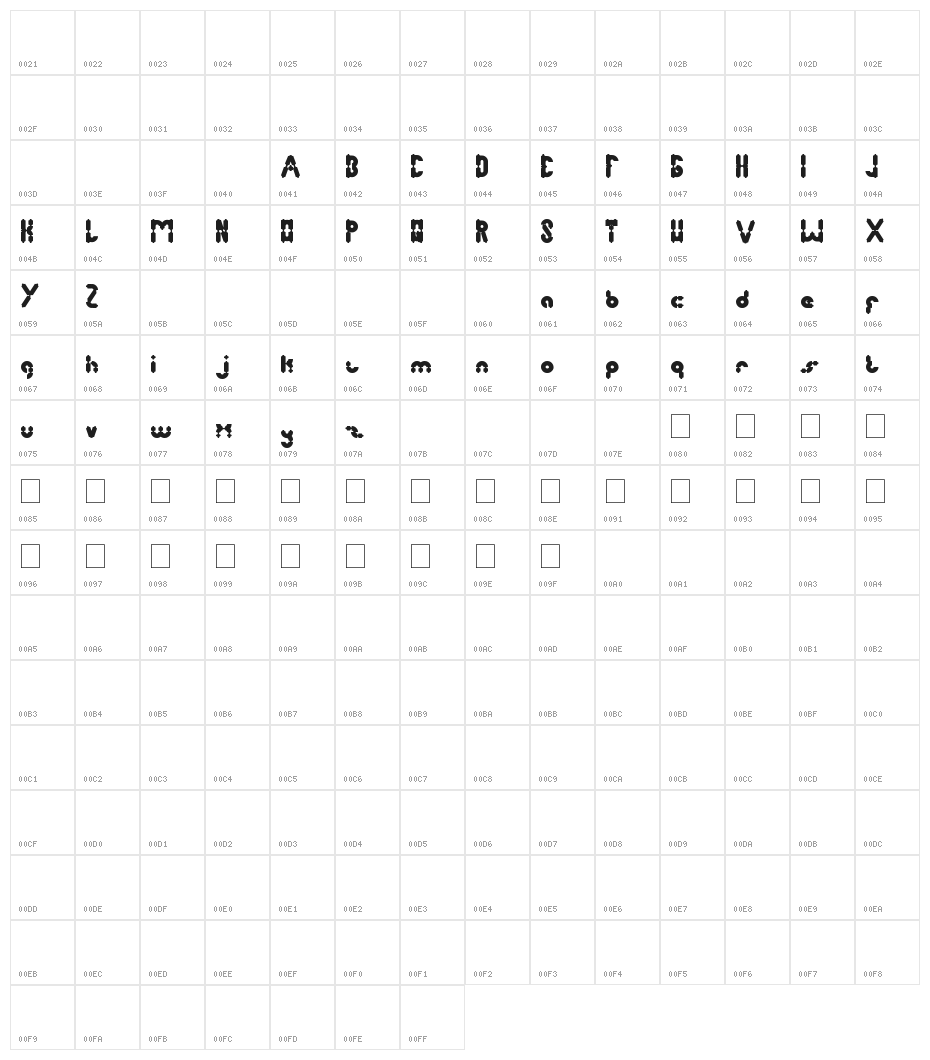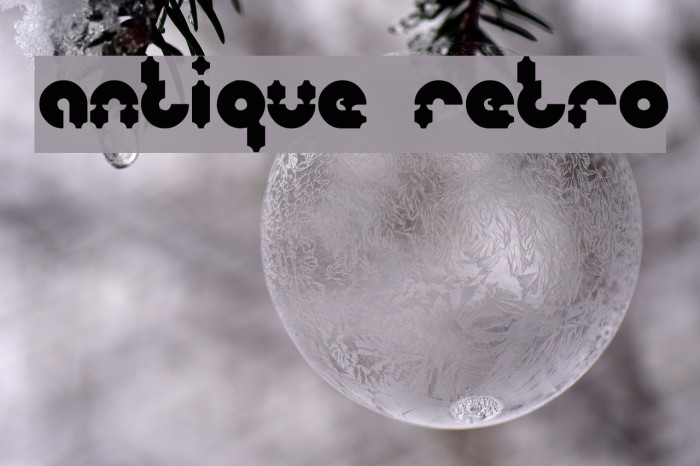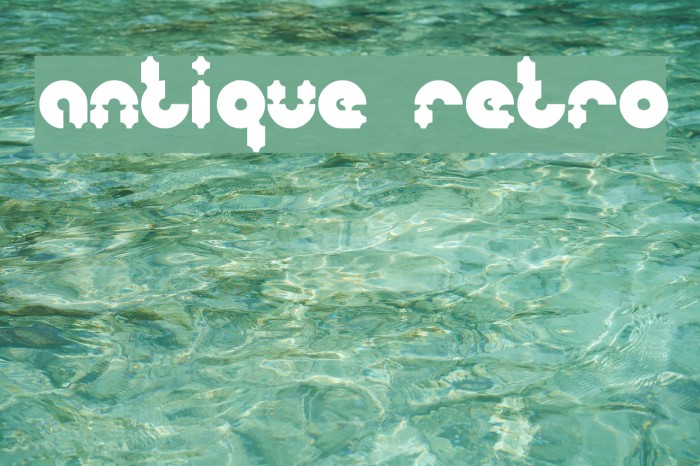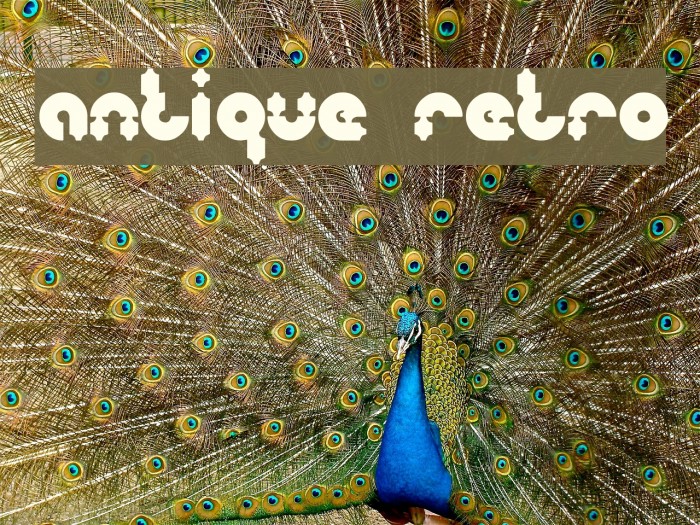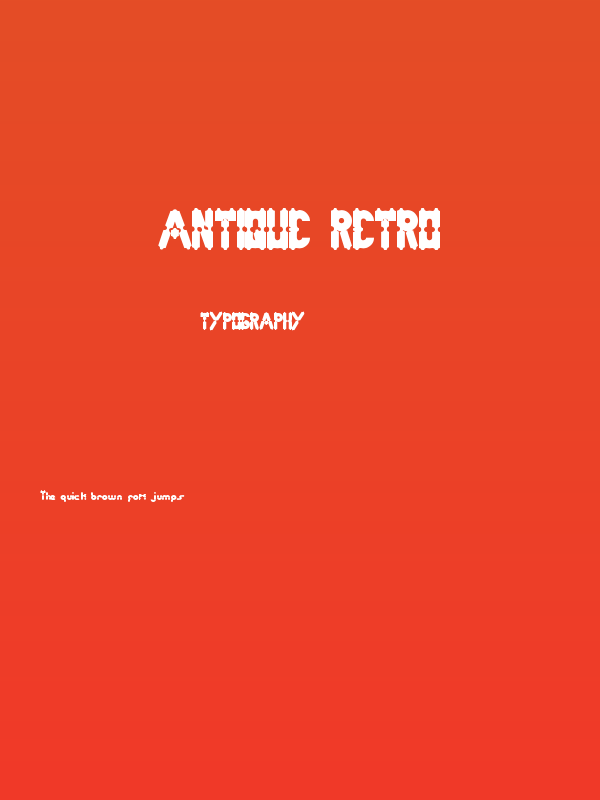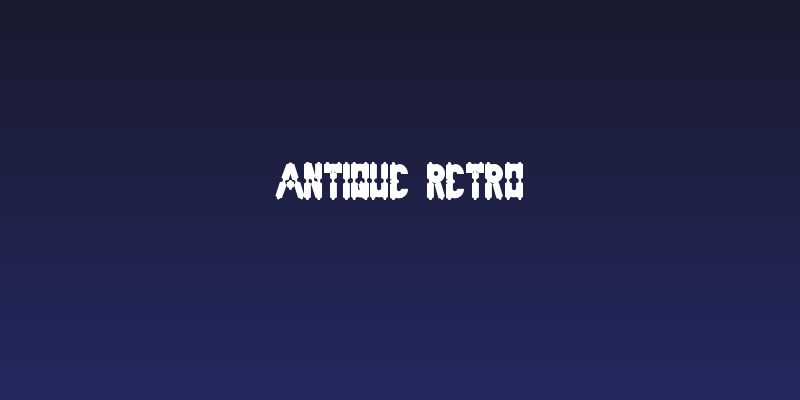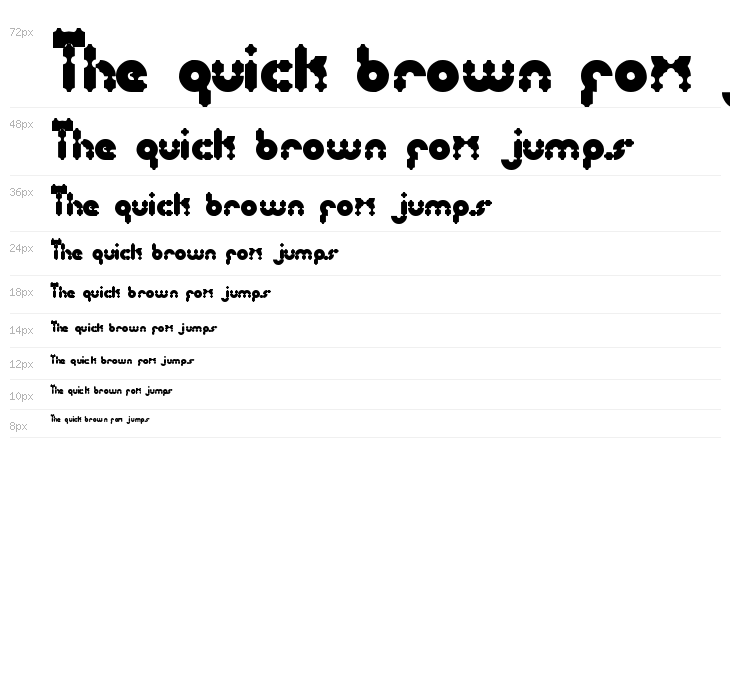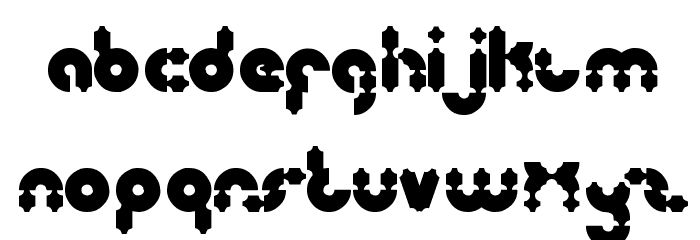
antique retro Font
antique retro Description
This font features a bold, decorative style with a retro flair, characterized by its unique geometric shapes and cut-out patterns within each letterform. The uppercase and lowercase letters maintain a consistent design theme, creating a cohesive visual experience. The font's playful yet structured appearance makes it stand out, with each character exhibiting a distinct personality. The boldness of the strokes combined with the intricate detailing gives it a striking presence, suitable for eye-catching designs.
| Overall Style | Retro, Decorative |
| Proposed Projects | Ideal for vintage-themed posters, retro branding, artistic book covers, and unique logo designs. |